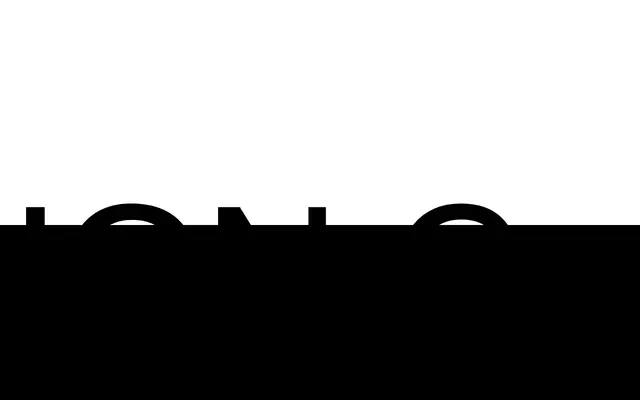
ION C
Setup Type · Ondrej Jób · 2010
A modular display typeface built on the 7-segment LCD grid, released in 11 styles from Thin to a trio of ultra-heavy weights, with a companion Cells style for building grid-based compositions.
Designed by Ondrej Jób and first released in 2010, ION C is the wide variant in the ION collection alongside the condensed ION A and normal-width ION B. Its construction follows the matrix of the classic 7-segment LCD display, producing a uniform stroke with no contrast and a large x-height across ten weights. An eleventh style, Cells, provides filled and outlined containers with varying corner radii for layering beneath text or constructing standalone layouts. Over 100 languages are supported through Basic and Extended Latin, while the three heaviest ultra weights carry only the basic glyph set due to their simplified construction.
ION C is constructed on the matrix of the classic 7-segment LCD display, making it a modular display typeface with no contrast and a monospaced, geometric construction derived from digital segmented readouts.